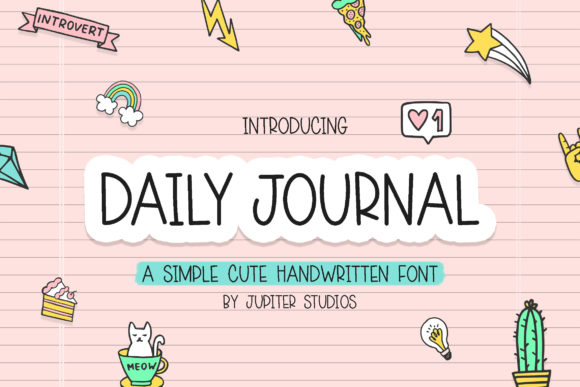
Looking for the best fonts for planner headers? Look no further than Daily Journal Font, a stunning addition to any designer or planner's collection.
Created by Jupiter Studio, Daily Journal is a gorgeous script font that exudes charm and simplicity. Its handwritten style adds a personal touch to any project, making it perfect for everything from chalkboard quotes to educational materials.
But Daily Journal isn't just cute – it's also incredibly versatile. Whether you're designing a planner, a journal, or any other type of project, Daily Journal can help you create a look that's uniquely your own.
So why should you download Daily Journal Font? For starters, it's the perfect way to elevate your designs and make them stand out. With its authentic look and feel, Daily Journal is sure to capture the attention of anyone who sees it.
But Daily Journal is more than just a pretty face – it's also incredibly easy to use. Whether you're a seasoned designer or just starting out, Daily Journal's intuitive design makes it a breeze to incorporate into your projects.